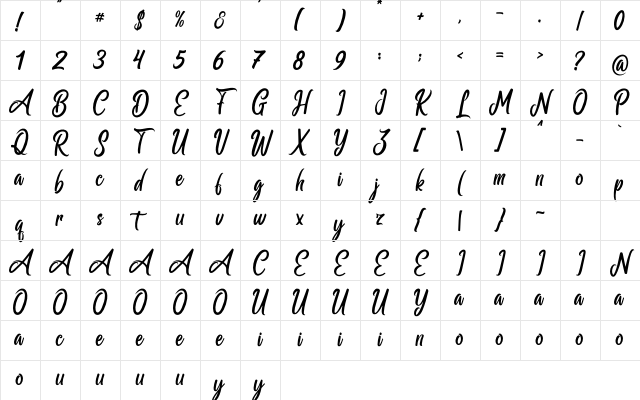
Complete Ballmain Regular glyph index. Displaying only characters natively supported by Ballmain Regular font.
Ballmain is a composed and adaptable typeface that performs quietly and consistently across a wide range of design contexts.